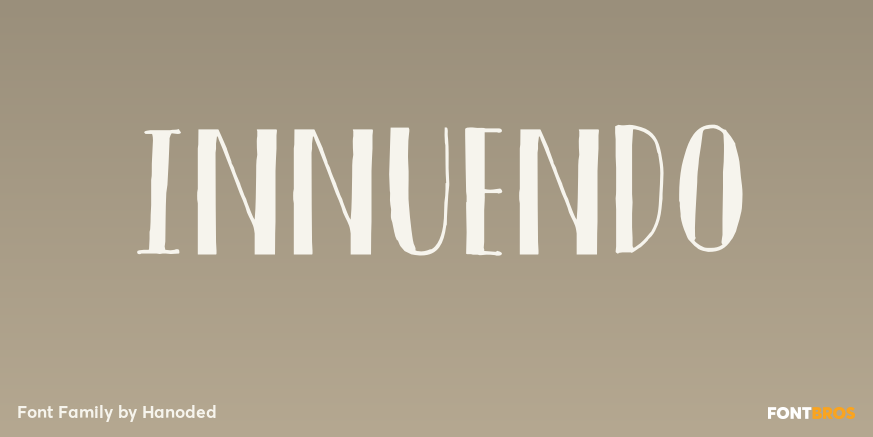
Innuendo
About Innuendo
Innuendo, despite its name, is a straightforward font. It is an all caps, hand-drawn typeface with an elegant look and some cheeky curls. Upper and lower case differ and like to mingle. Comes with a bagful of diacritics.